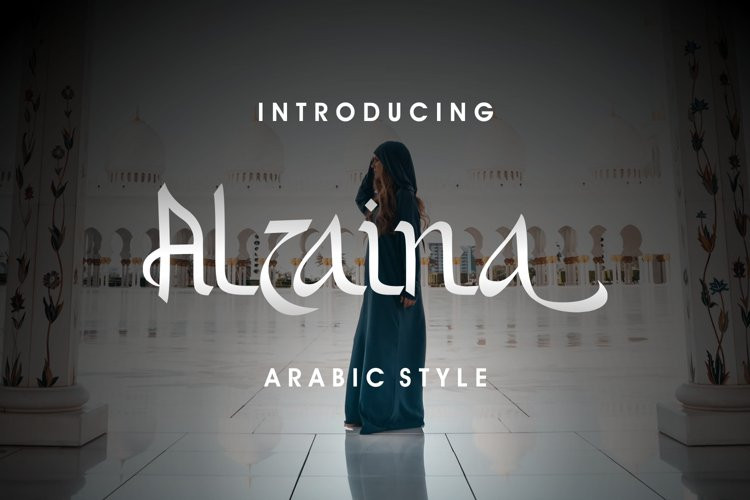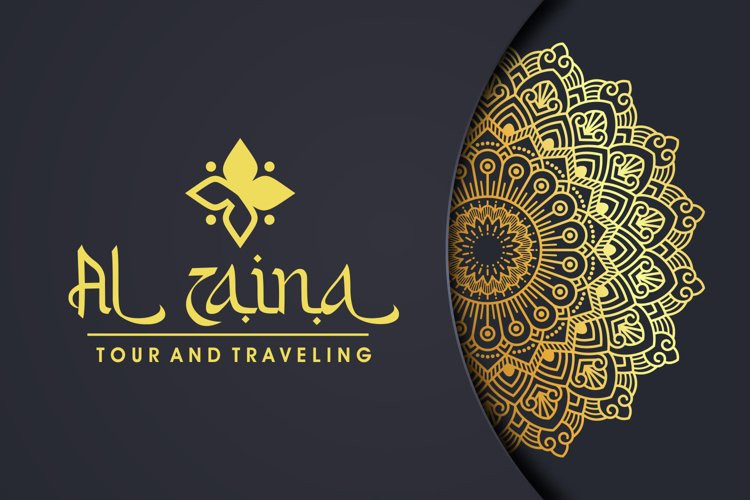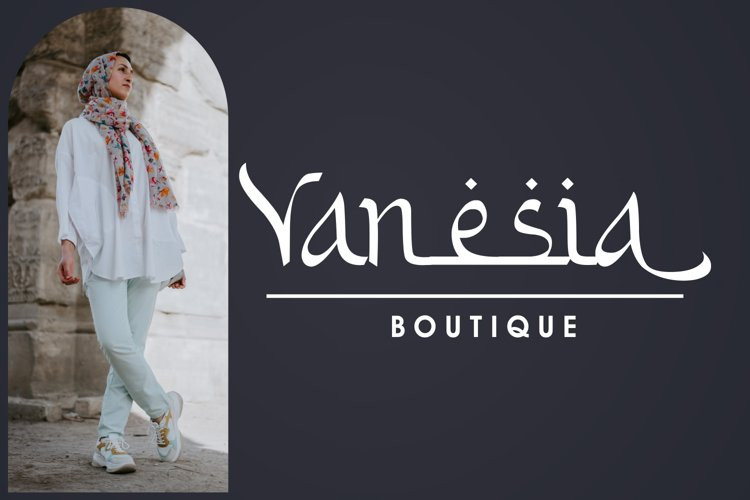
Alzaina Font
Alzaina FontIntroducing Al Zaina, a font with Arabic style, inspired by classical Latin handwriting and Arabic calligraphy art. Fonts designed with a touch of arabic style are very suitable for use in your various projects, product packaging, magazine covers, book covers, flayer backgrounds, beauty products, boutiques, and are used for writing at Islamic annual events. Equipped with alternate, and swash makes it easy for you to explore your design.